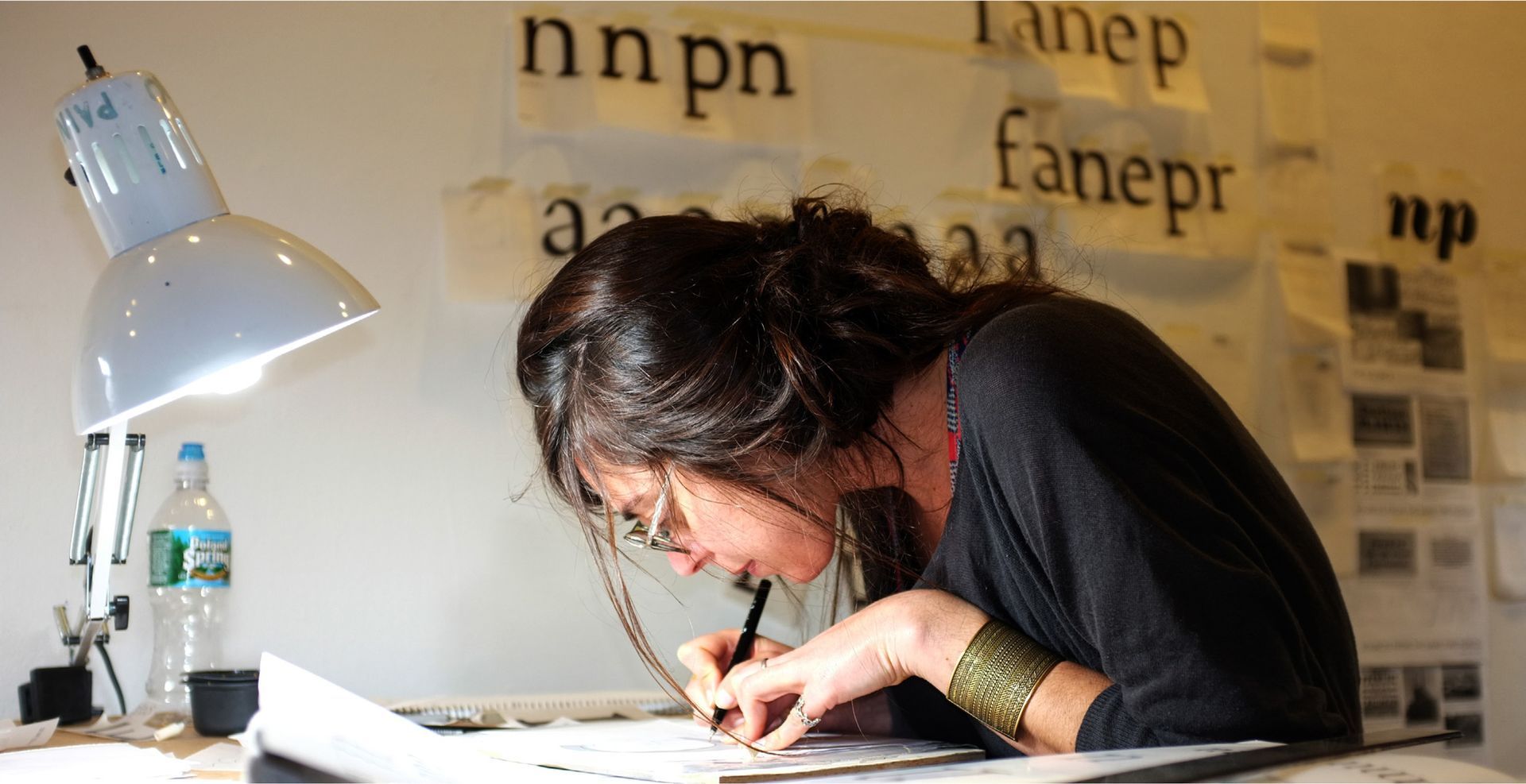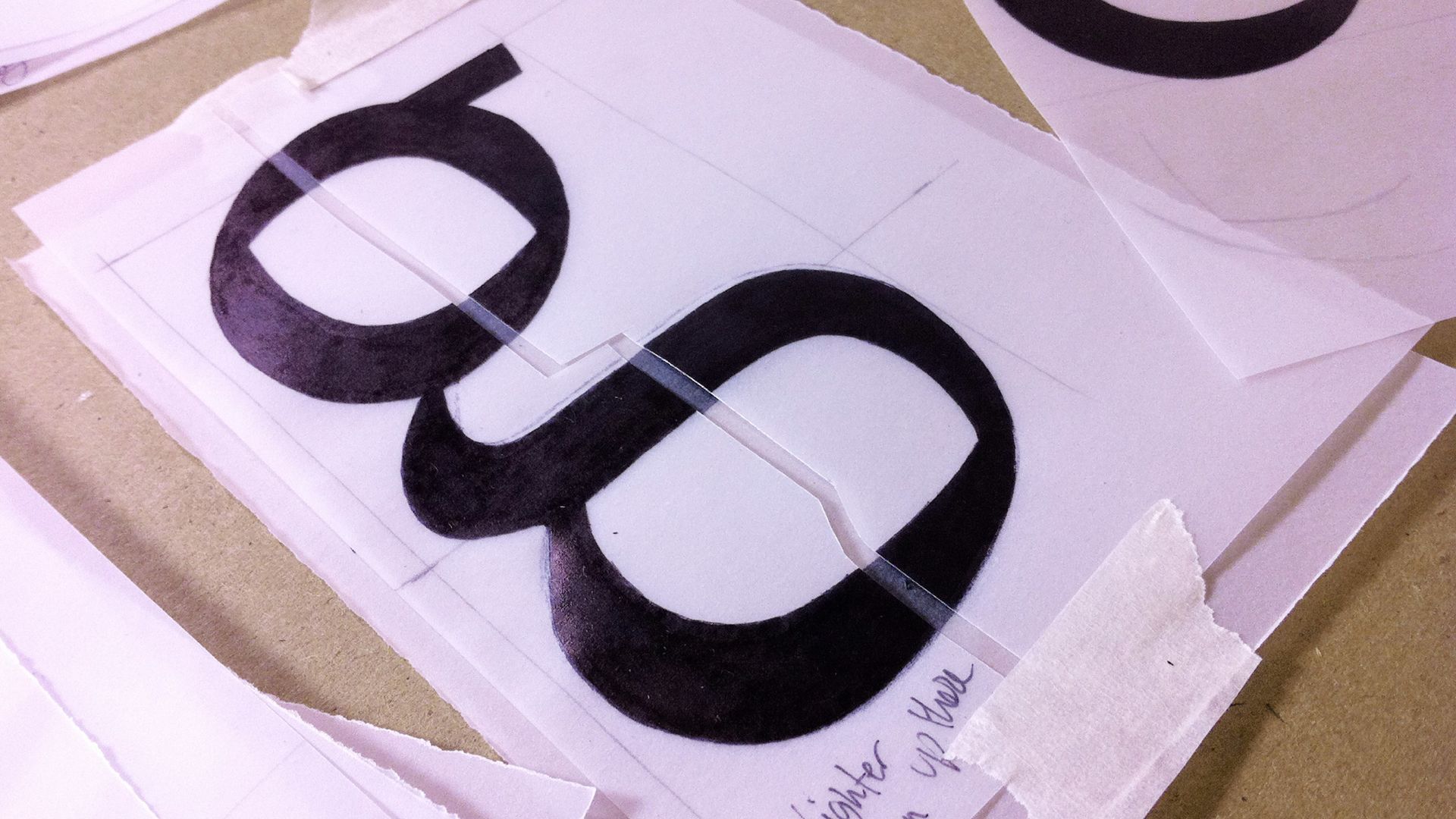
MarchTwentyTwo | Humanistic Font
Red poster with black “MarchTwentyTwo” title and a small white quote underneath.
Printed black chain-link symbol on white paper, lying on a desk with another sheet beneath it.
Red lowercase letters “pg” on a light gray background.
Red font sample showing alphabet, accented characters, and numbers on a red background.
Red word “murciélago” on black background with small white Spanish synonyms below.
Red title “DIFICILÍSIMO” on black background, with three columns of white words below.
PHamburgerfonts in white and red text on a black background
Stylized black background with red and white “cas” text centered; small Arabic text beneath.
Red background displaying lowercase and uppercase alphabet with accented characters in white.
White text list of words in three columns on a black background.
Black background with three large white lowercase “n” letters and small red labels beneath each.
MarchTwentyTwo | Type Design
MarchTwentyTwo typeface design was born during the Summer Condensed Program at Cooper Union in New York City, 2012.
This condensed program was a great learning curve, professionally and personally. Being admitted at Cooper Union gave me the motivation to go back to my broad nib and expansion pens and start writing calligraphy as a daily exercise before our daily commissioned work. During the course, I had the opportunity of designing my second typeface design called MarTwentyTwo, a humanistic type developed from my own calligraphic hand.